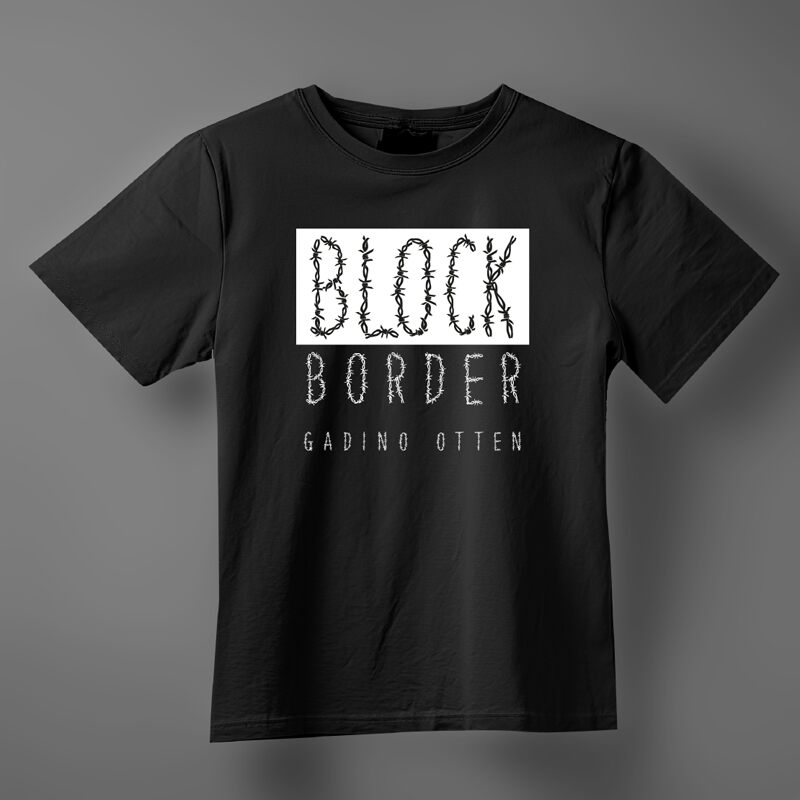
The "Block Border" font by Galdino Otten Fonts is a captivating display typeface that exudes a bold, industrial aesthetic. Its condensed width and decorative, border-like elements create a striking visual impact, lending an air of rugged sophistication to any design. The font's intricate, intertwining lines and angular forms evoke a sense of strength and resilience, making it an alluring choice for projects seeking a visually arresting typographic statement.
This versatile font can elevate a wide range of design applications, from eye-catching headings and impactful logos to attention-grabbing packaging and editorial layouts. Its unique character allows it to seamlessly integrate into both modern and vintage-inspired design schemes, adding a dynamic touch that commands attention. The "Block Border" font by Galdino Otten Fonts is a formidable typographic choice for designers seeking to make a lasting impression.
Block Border